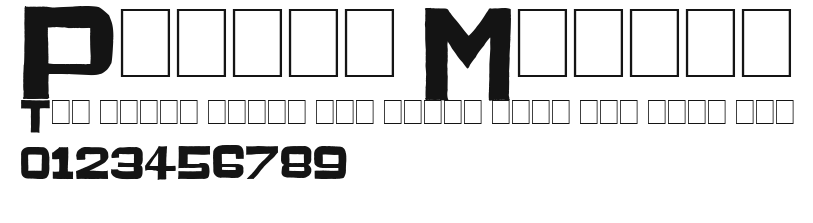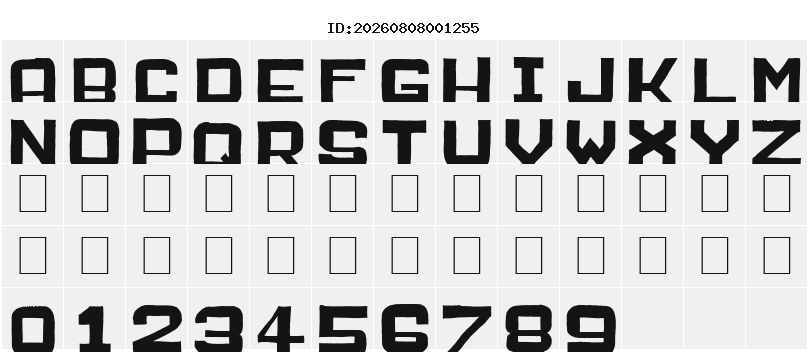
Public Market Preview
• Font Name: Public Market
• Full Font Name: Public Market
• Designer: IMAGEX
About Public Market.ttf
Public Market.ttf is a modern, elegant sans-serif font designed for ultimate readability and visual harmony. Perfect for branding, headlines, web design, and print materials.